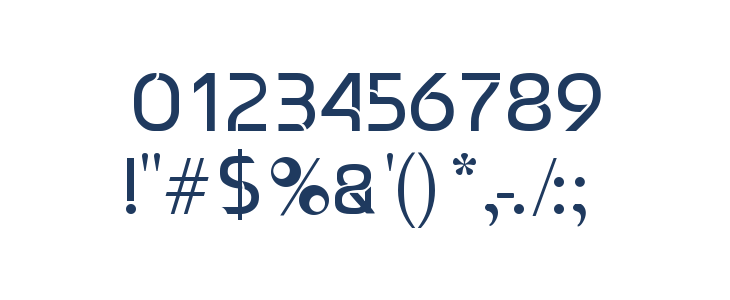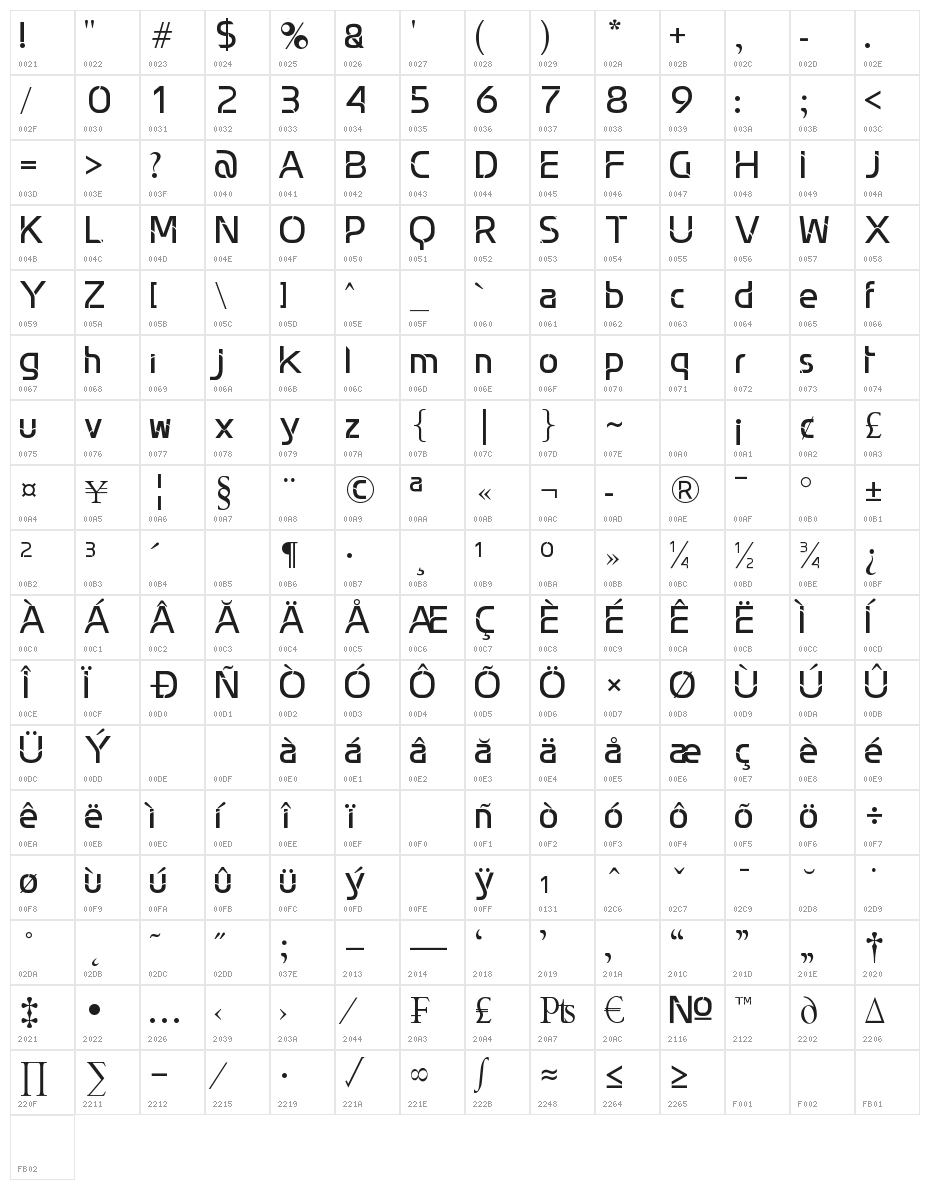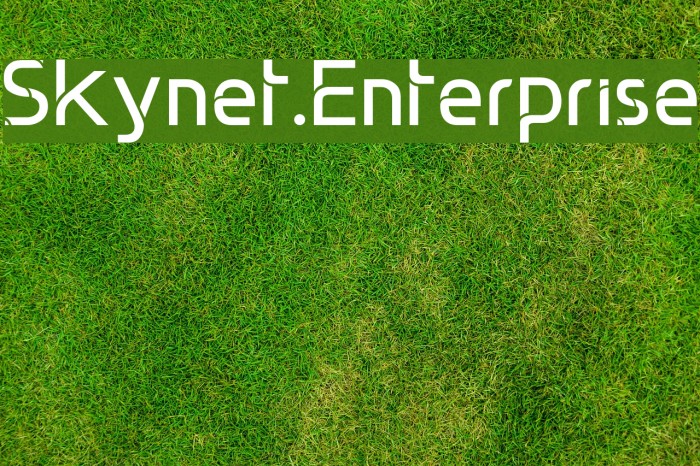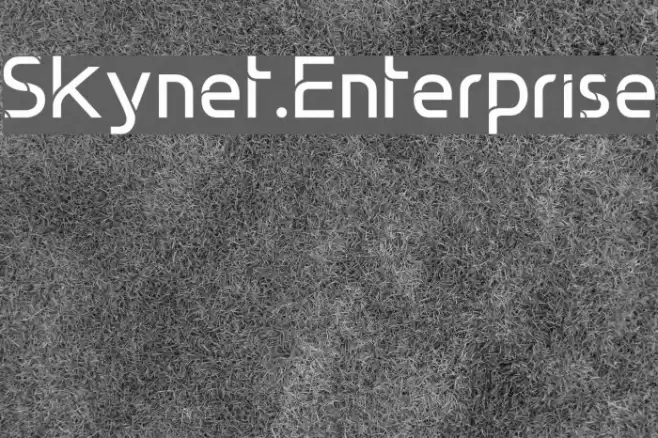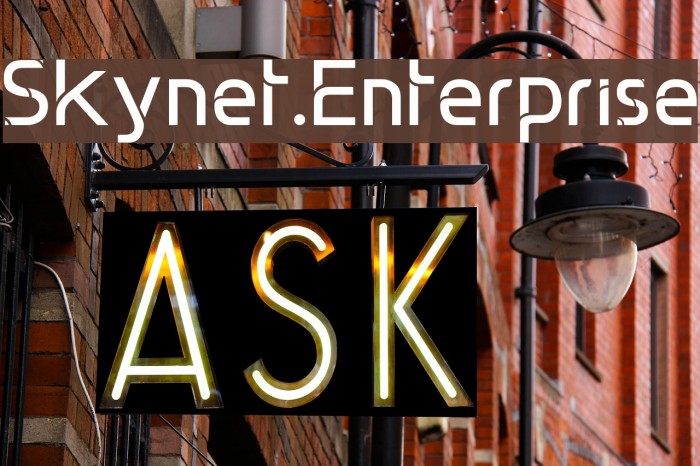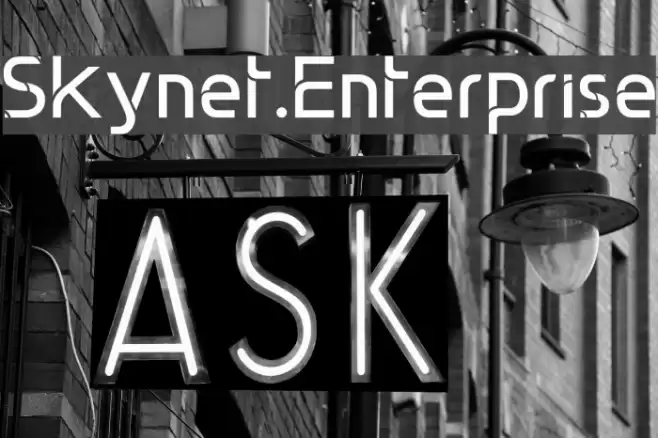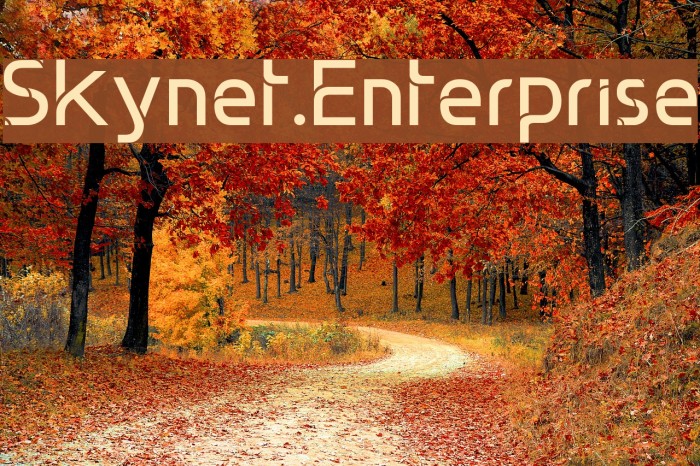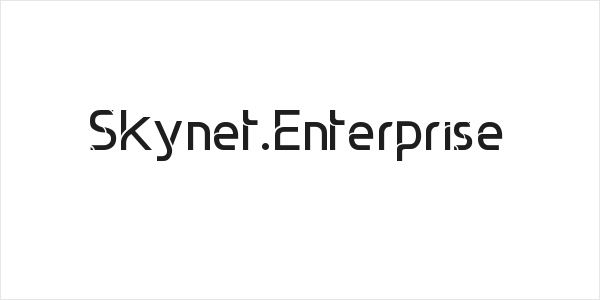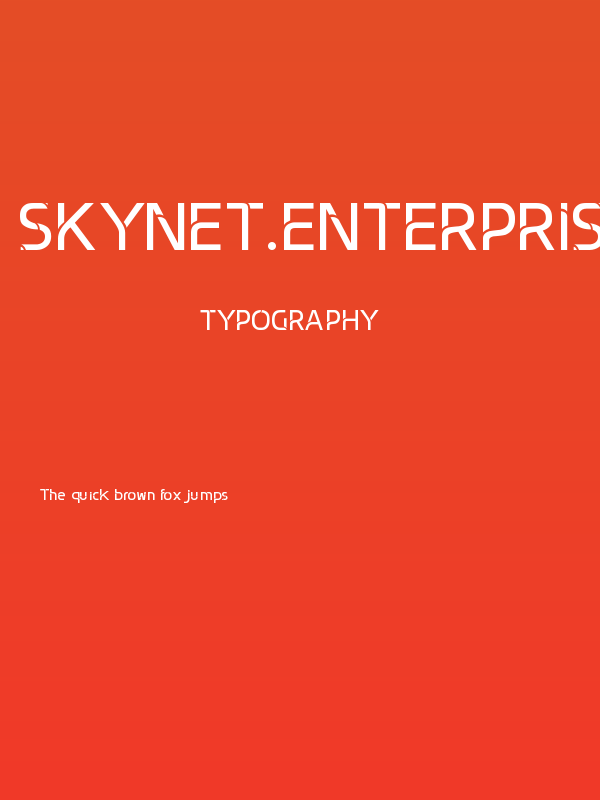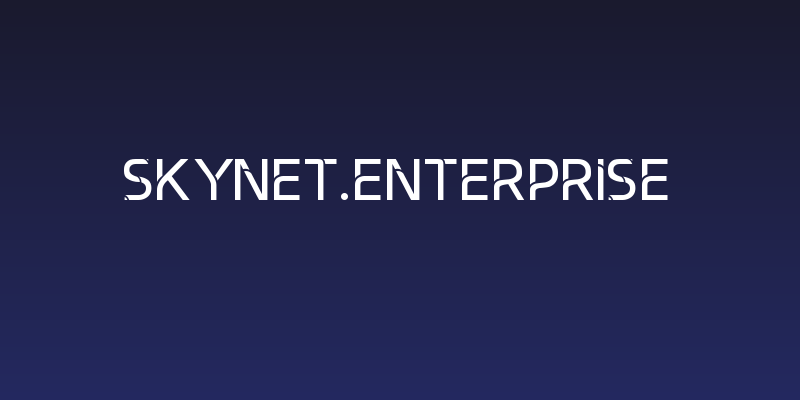
Skynet.Enterprise Font
Skynet.Enterprise Description
This font features a futuristic and geometric design, characterized by its sharp angles and clean lines. The uppercase letters exhibit a bold presence with distinct cuts and curves, creating a dynamic and modern appearance. The lowercase letters maintain a consistent style, offering a harmonious blend of rounded and angular elements. The numerals are designed with clarity and precision, ensuring readability while maintaining the overall aesthetic. Special characters are crafted with the same attention to detail, providing a cohesive look across all glyphs. The font's unique style makes it suitable for projects that require a contemporary and innovative touch.
| Use Case | Headlines, Logos, Digital Interfaces |
| Proposed Projects | Ideal for technology branding, sci-fi themed designs, modern advertising, and digital interfaces. |